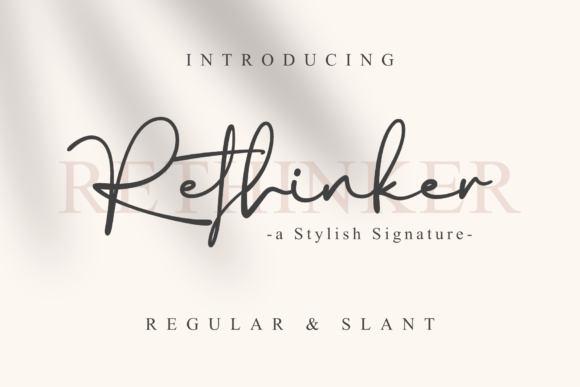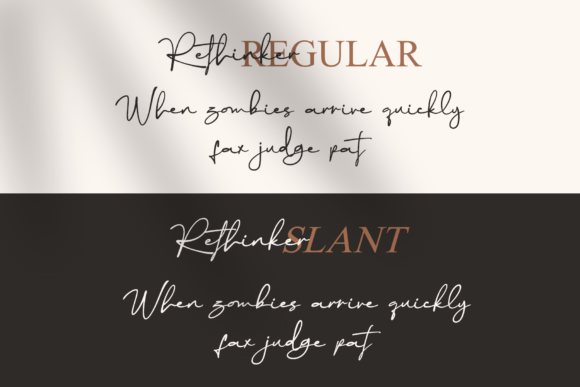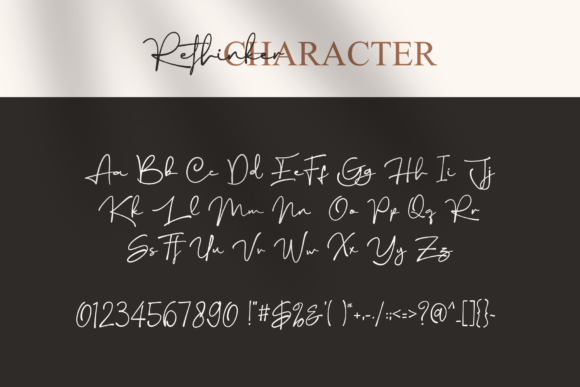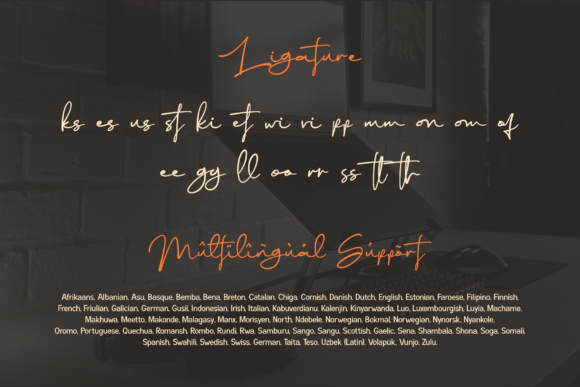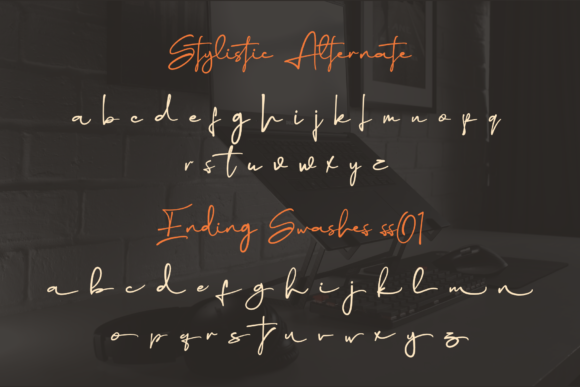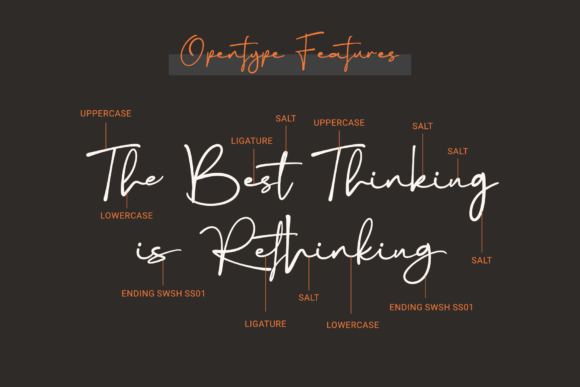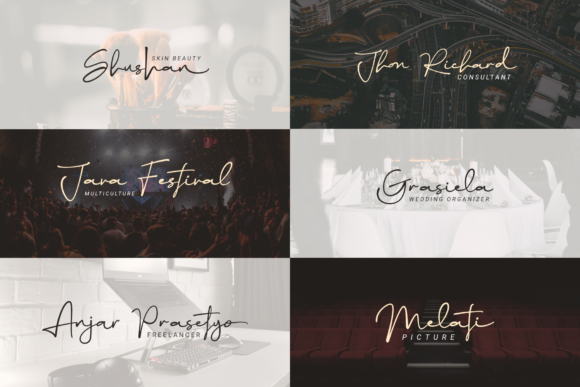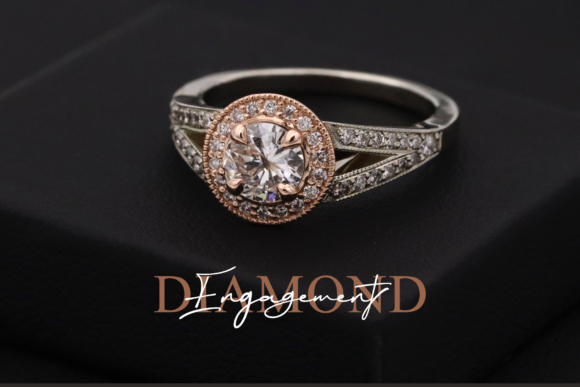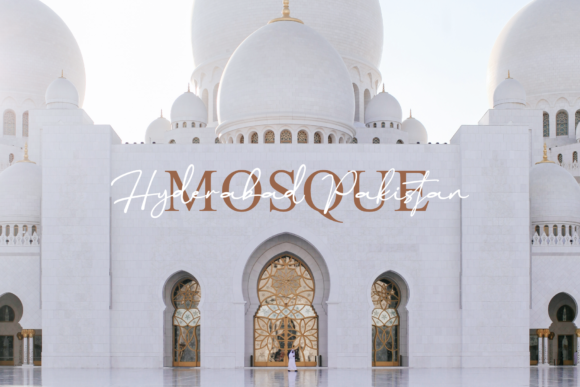
Rethinker Font
About Rethinker Font
Rethinker is a delicate and elegant handwritten font. Its distinct and well balanced letters make this font a masterpiece. Rethinker is PUA encoded which means you can access all of the glyphs and swashes with ease!